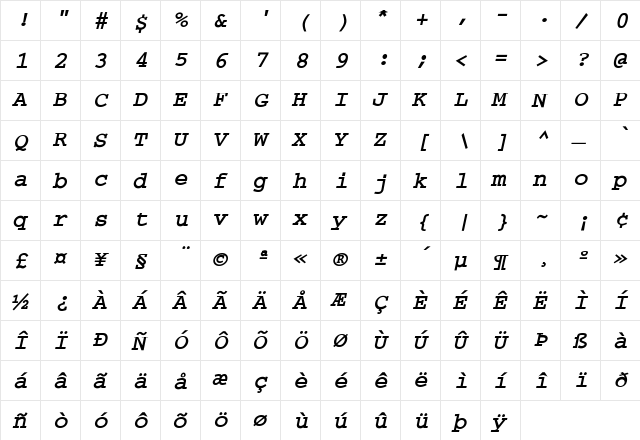
Andiron Regular
Design Context for Andiron Typeface
Andiron offers clean, dependable letterforms without strong stylistic allegiance, making it a practical choice for designers who need flexibility.